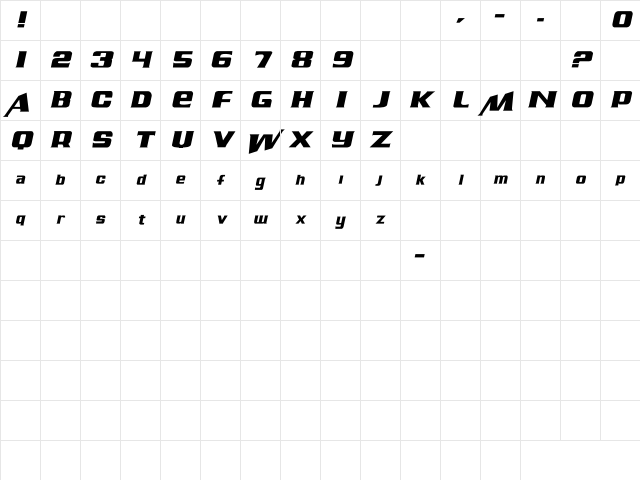
LHF Quantum is a composed and adaptable typeface that performs quietly and consistently across a wide range of design contexts. The slanted form adds forward momentum and visual energy.
Pro Tip: Use LHF Quantum for emphasis, pull quotes, and subheadings where its slanted energy can add rhythm to the layout.